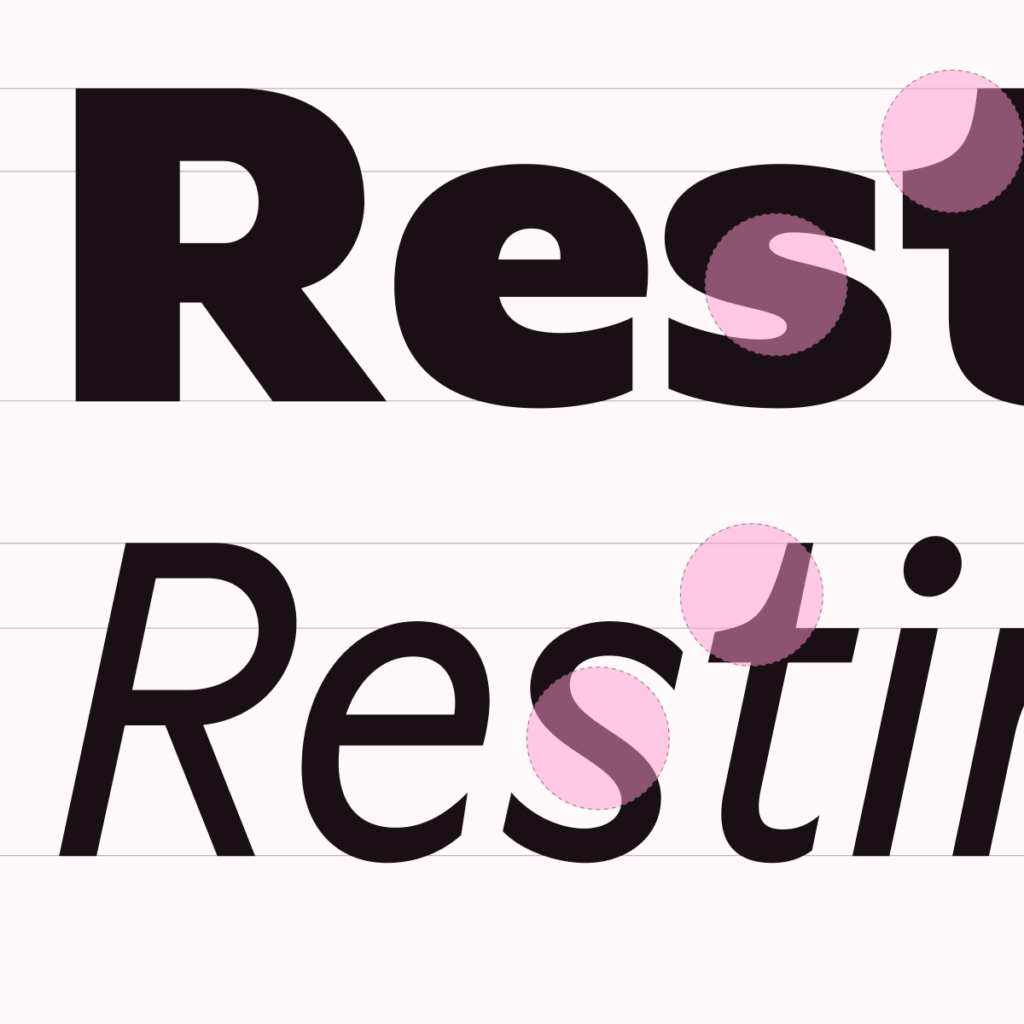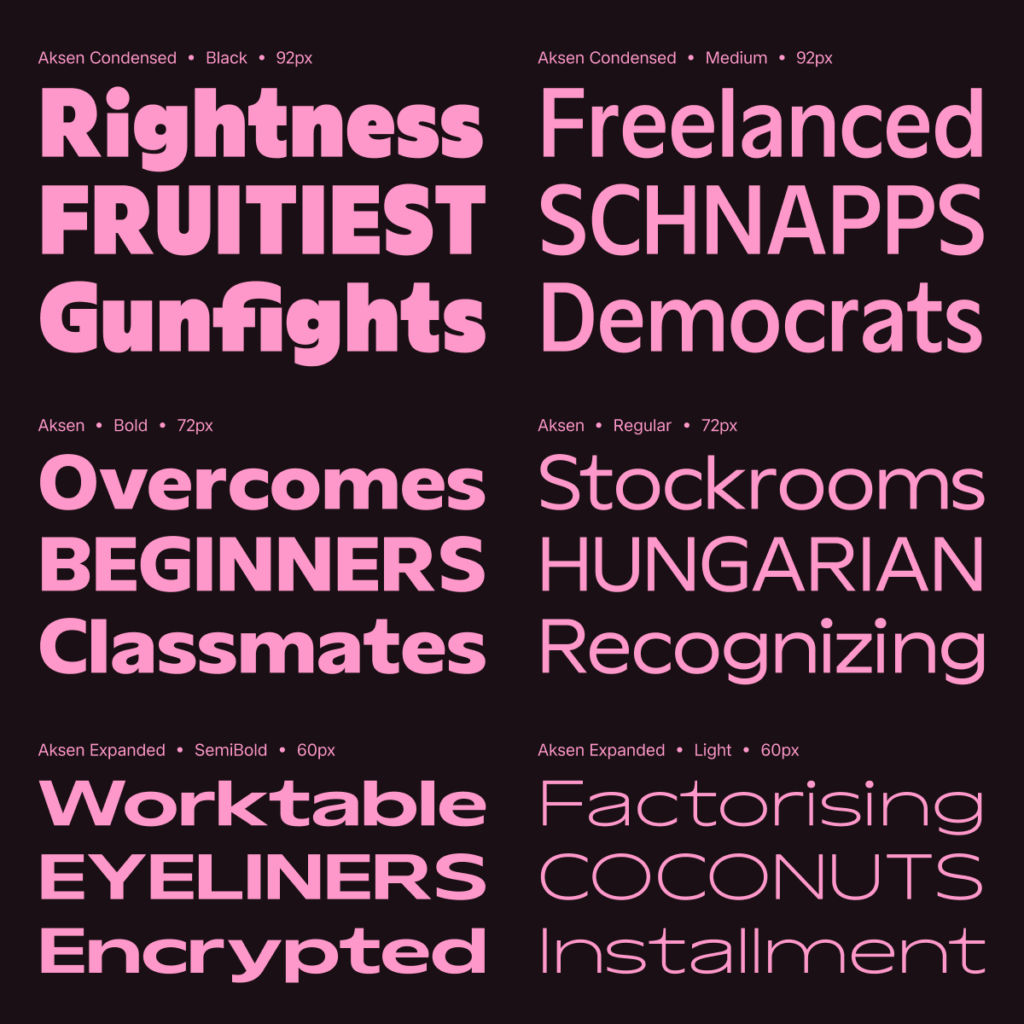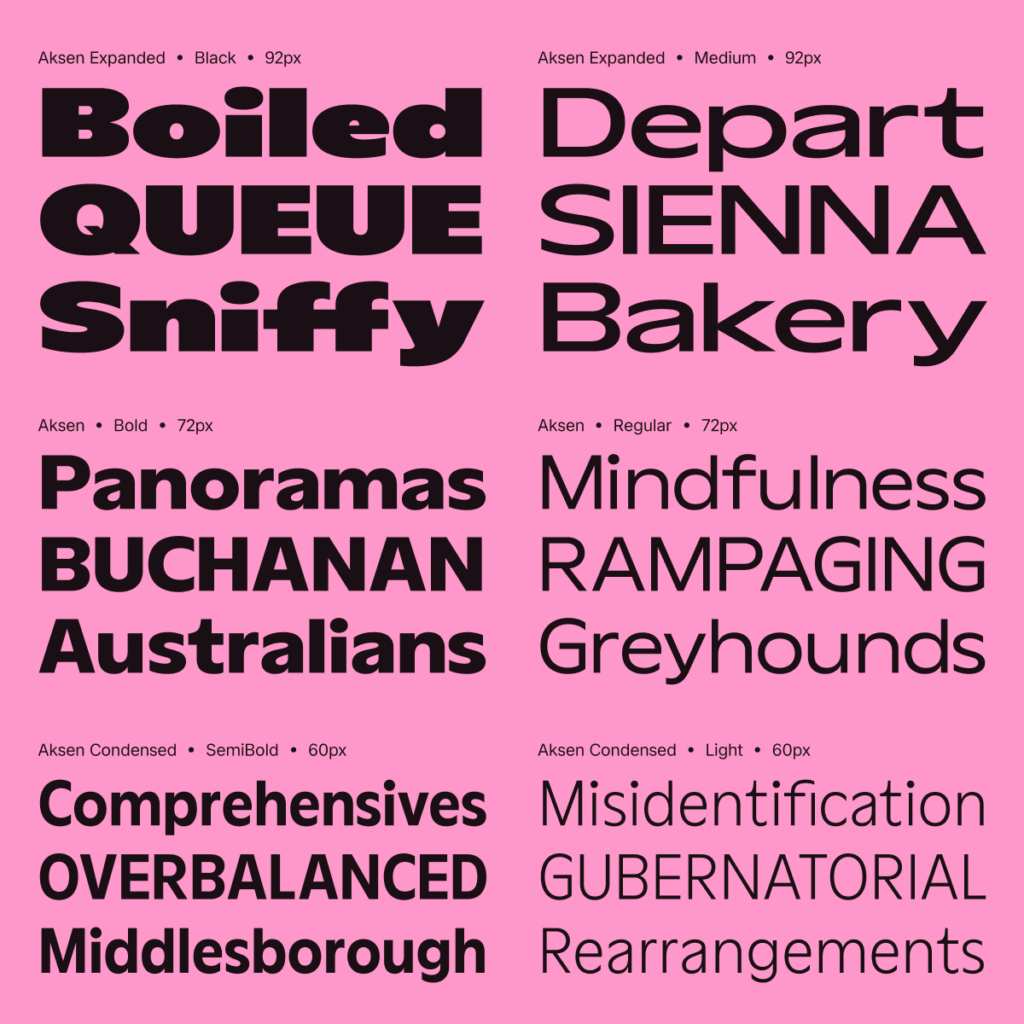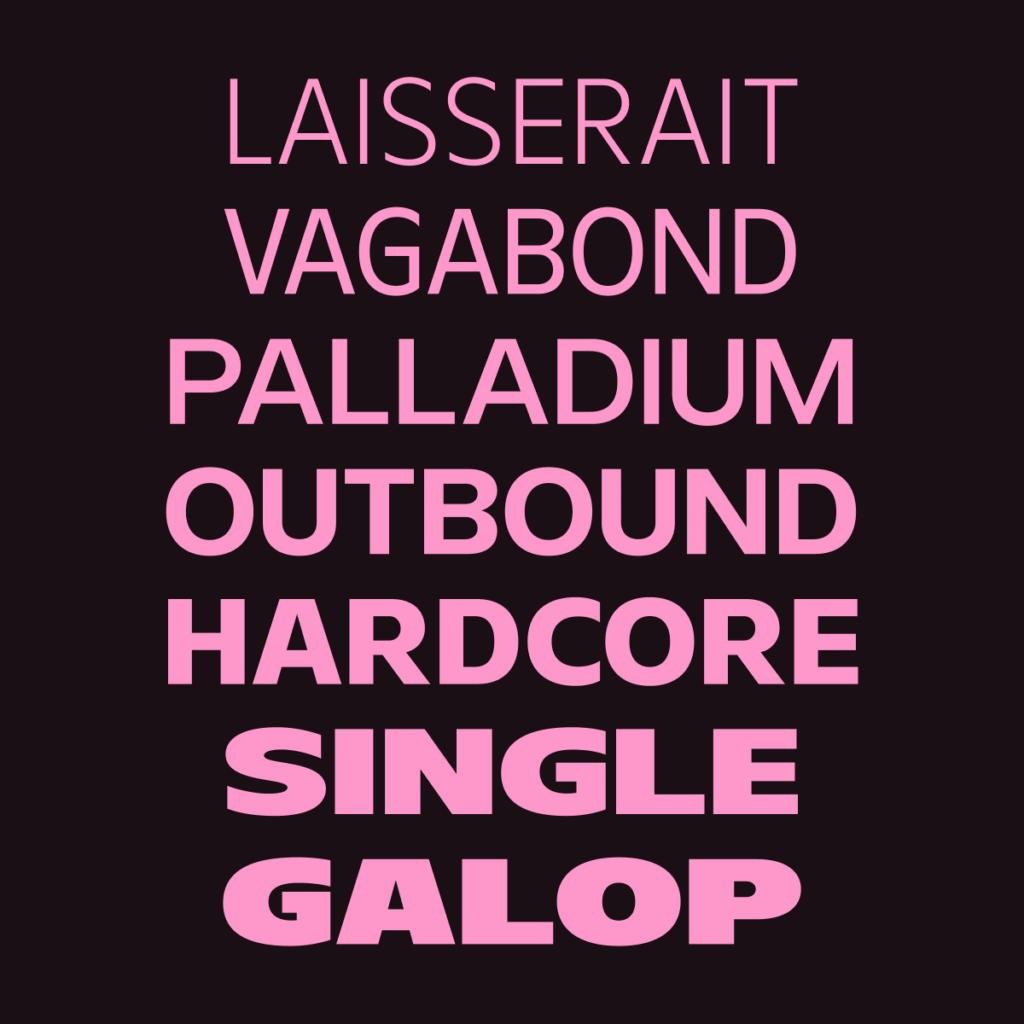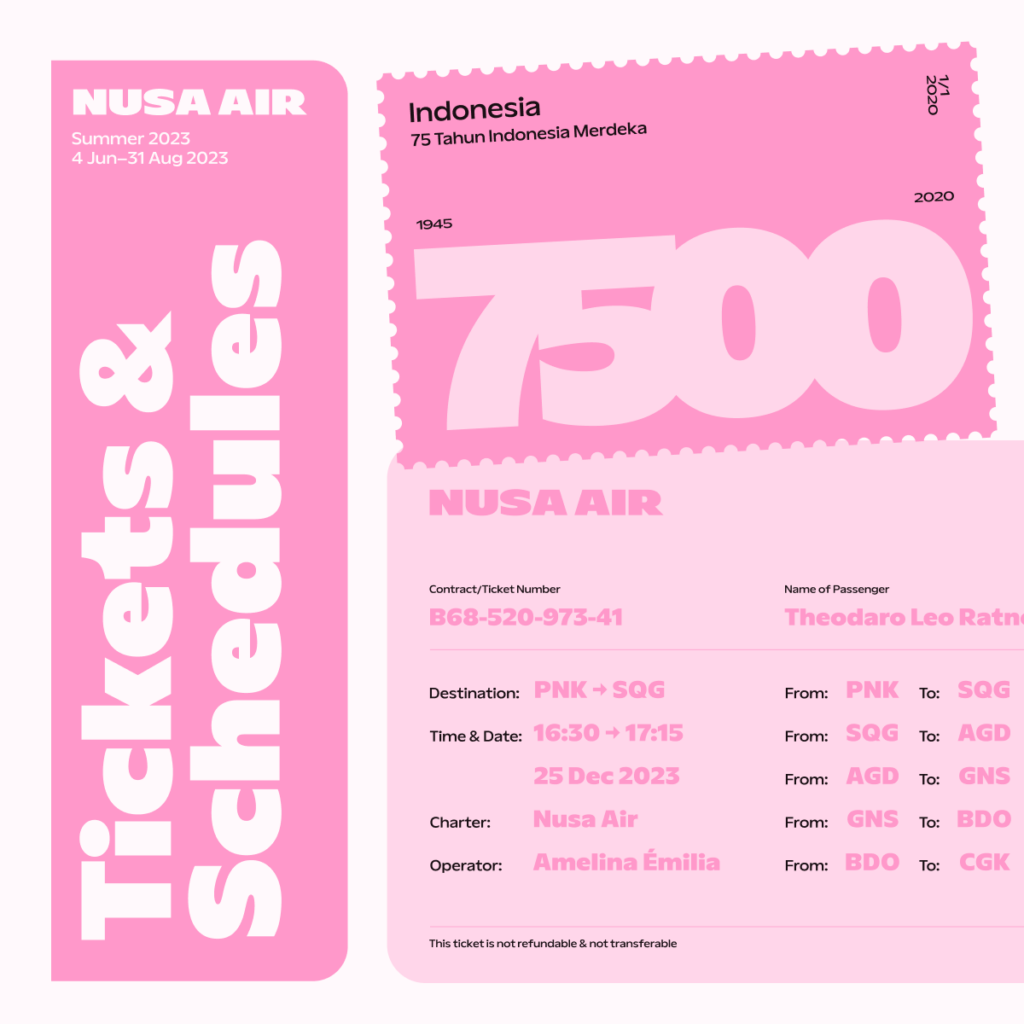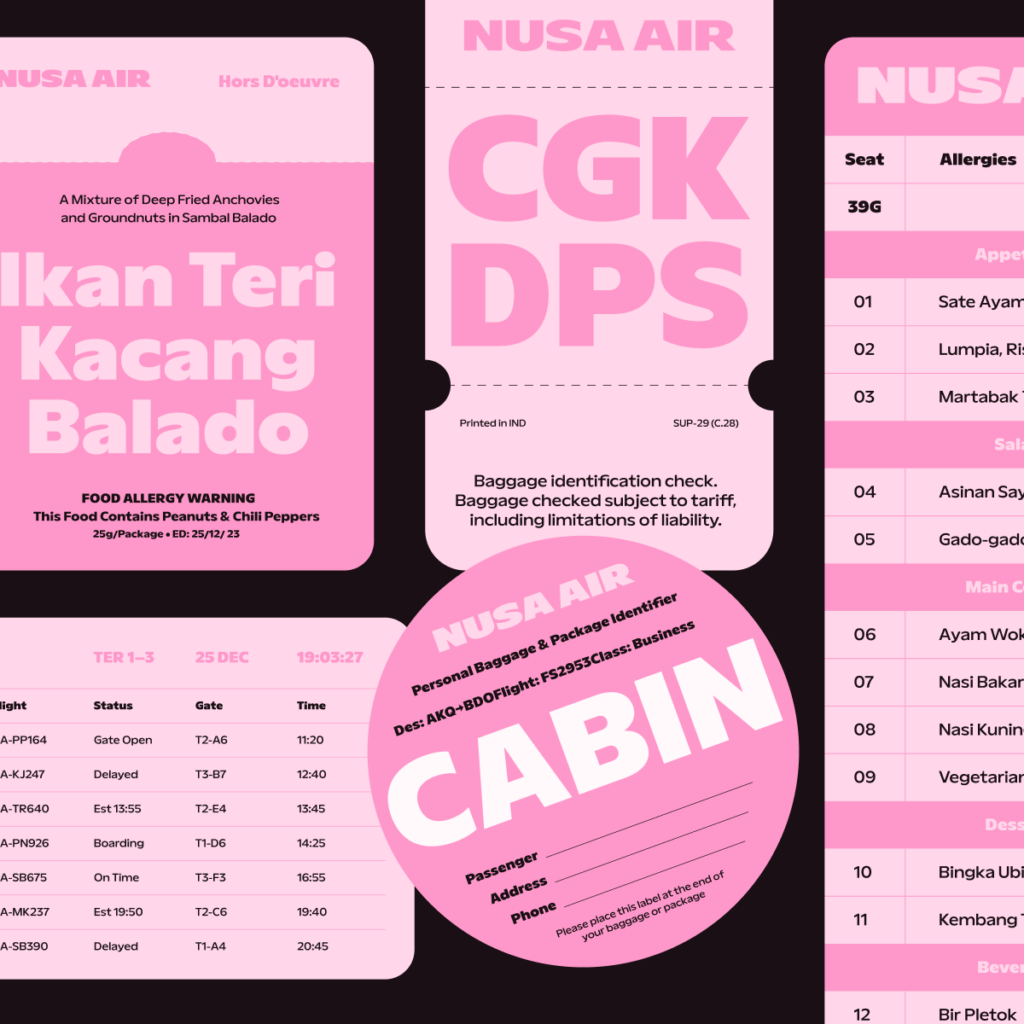
Aksen
Aksen, named after the Indonesian word for accent, is designed to add a personal touch to every composition. Inspired by Roger Excoffon’s Antique Olive, famously used by Air France. Aksen reimagines the classic with a modern, humanist sensibility. Its warm, pragmatic tone feels both bouncy and refined, making it expressive for in-use design like airline ephemera.
Released by Tokotype in 2023 and designed by Gumpita Rahayu, Aksen is a humanist sans-serif typeface inspired by Roger Excoffon's Antique Olive, once famously used by Air France. Aksen combines soft, rounded forms with a pragmatic structure, balancing playfulness with clarity. Aksen is not a revival but a reinterpretation, drawing from historical references while meeting the needs of contemporary typography.